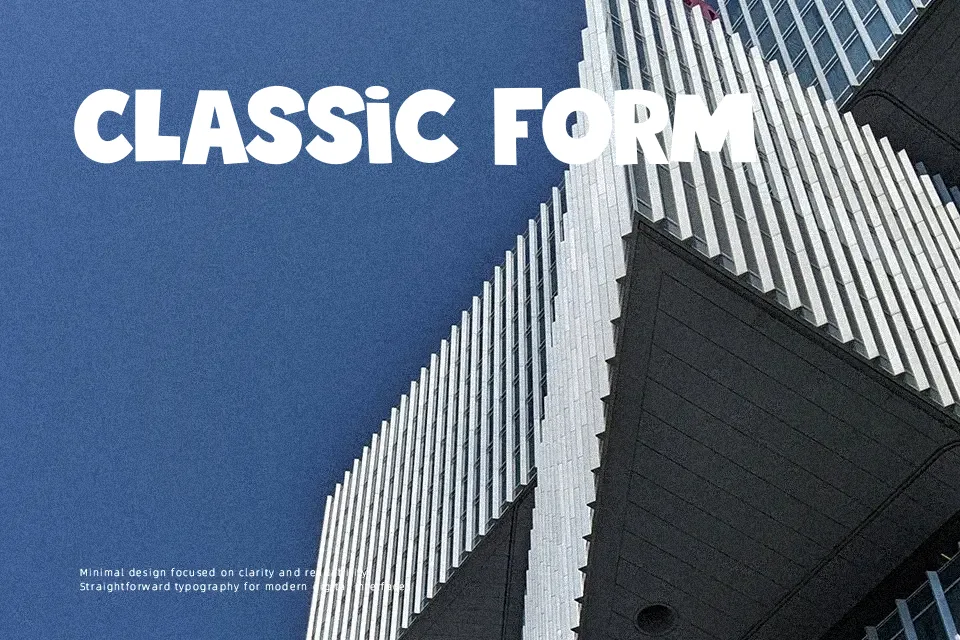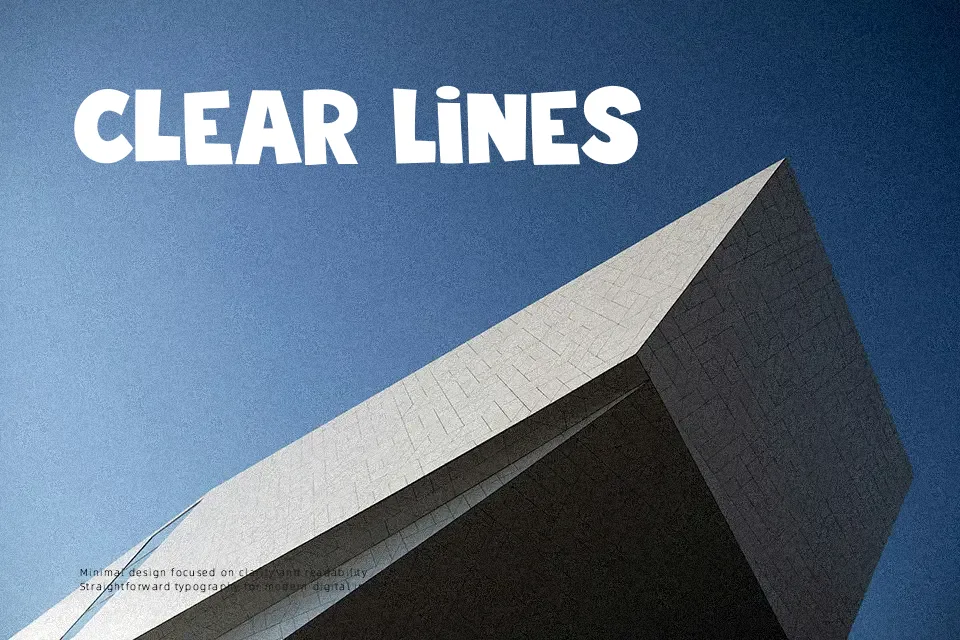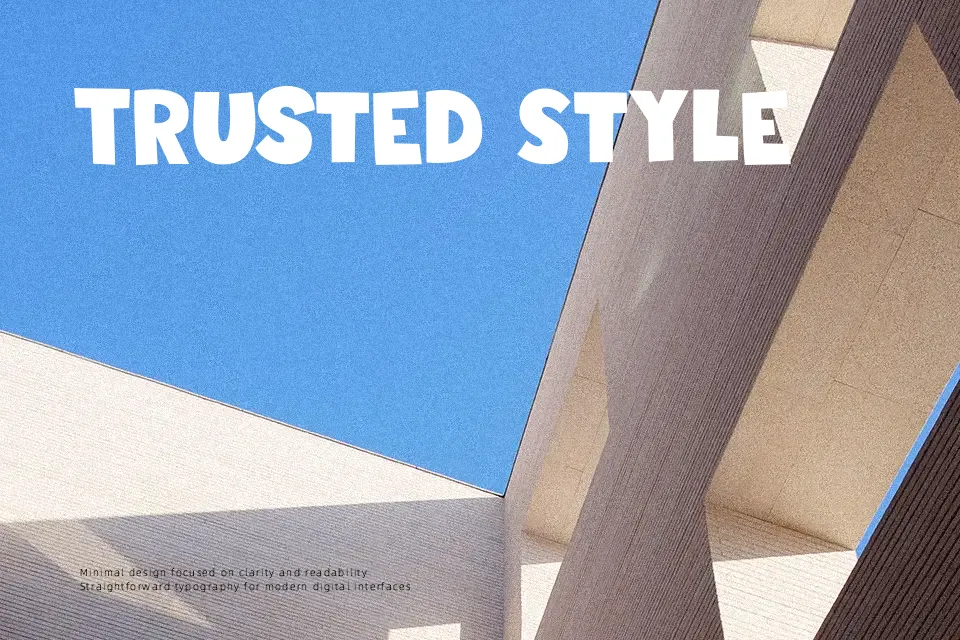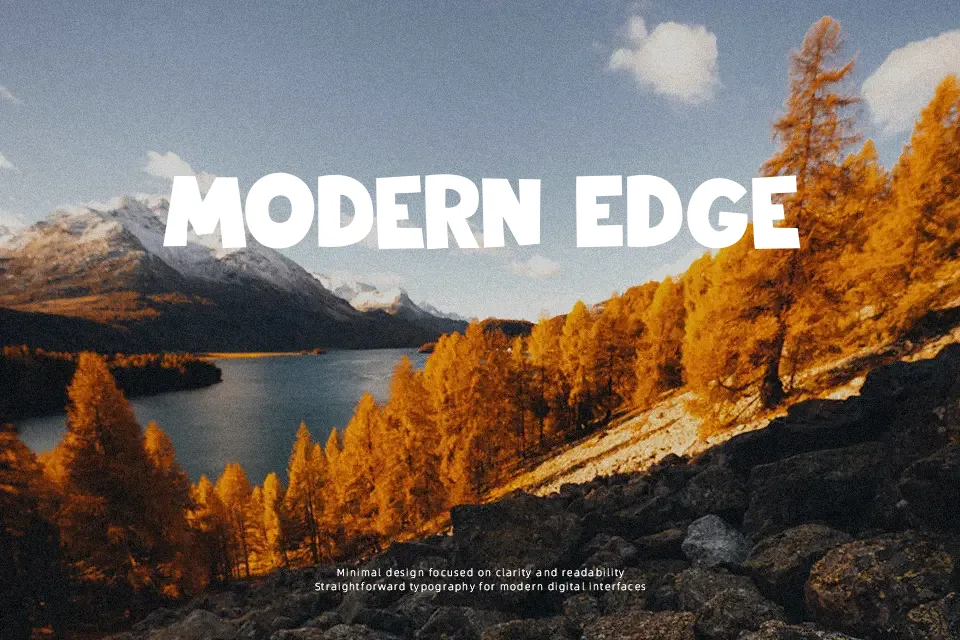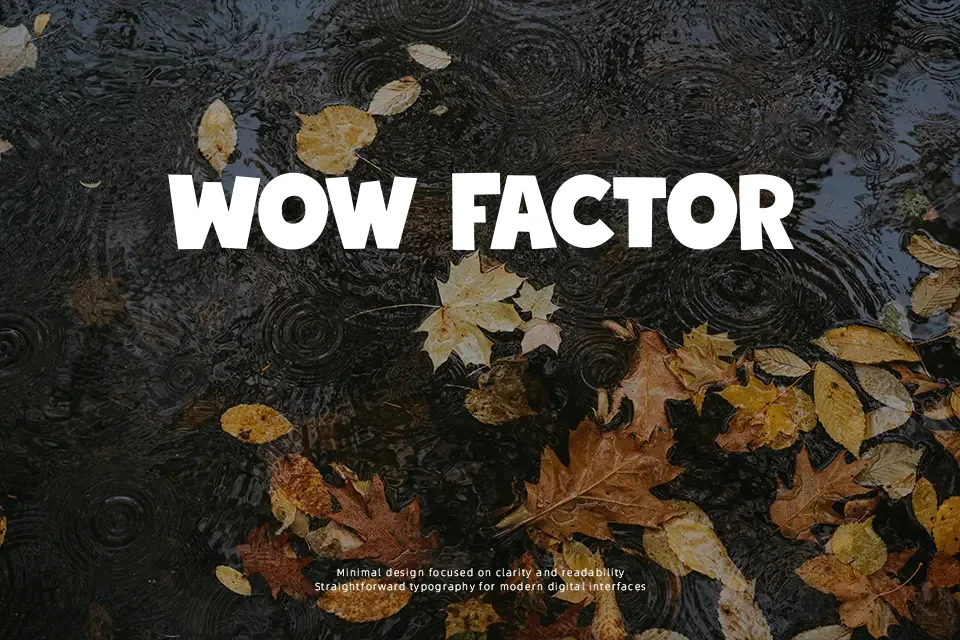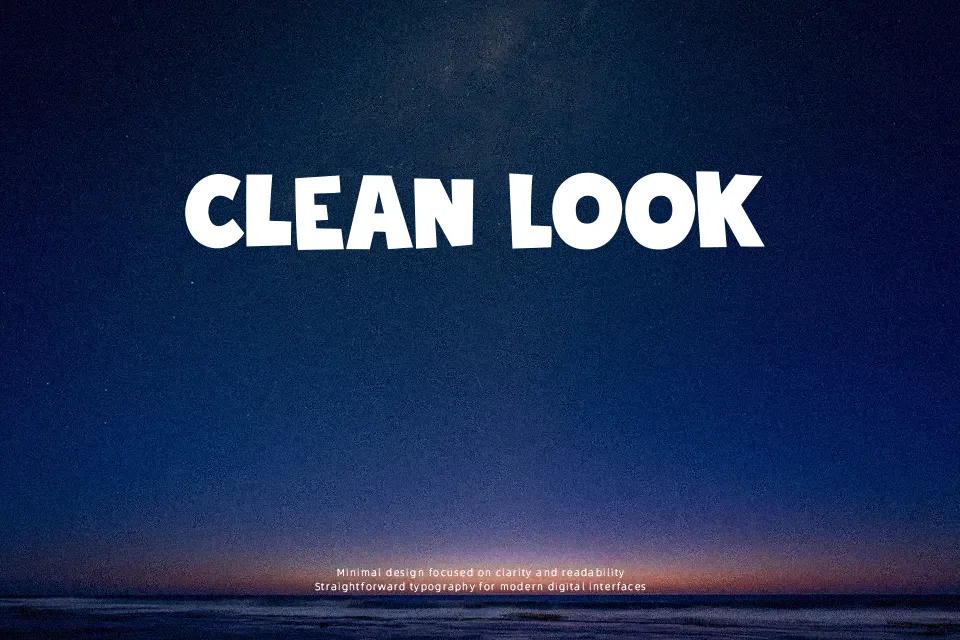
DK Sticky Toffee Font
Designed by David Kerkhoff
DK Sticky Toffee is a bold cartoon display font with thick strokes, tight spacing, rounded edges, and a soft, slightly inflated structure that feels sugary rather than aggressive. The heavy forms give short words strong visual weight, so it holds up well on snack packaging, children’s event graphics, playful menu headers, and themed posters where the title needs to feel fun at a glance. It works best when you keep the text short and let the chunky shapes do the work. For longer copy, small captions, or polished brand systems, it starts to feel cramped and a bit noisy.
candy packaging,kids party posters,playful menu headers,novelty product branding
body text,formal editorial layouts,serious corporate branding,small interface labels
Perfect for headline, kids, and packaging, with a cute and cartoon style.